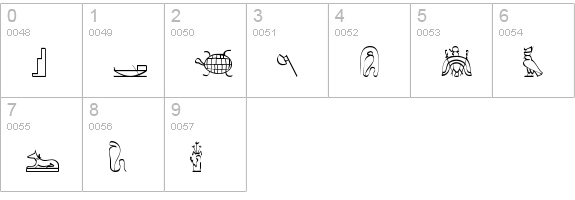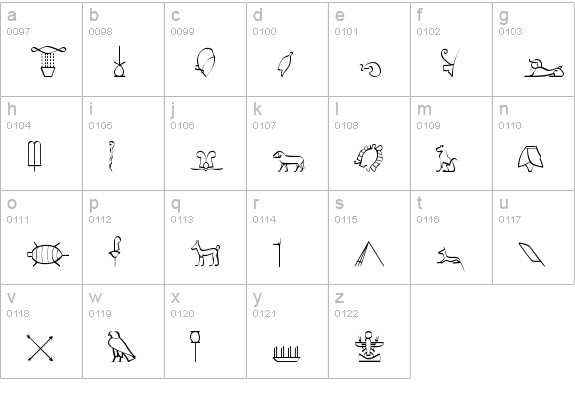
HieroglyphicDecorative Font Details
Introducing HieroglyphicDecorative font, a mesmerizing typeface that transports you back in time to the ancient world of hieroglyphics. This unique and intricate font captures the beauty and mystery of Egyptian symbols, making it perfect for adding a touch of elegance and history to your designs. HieroglyphicDecorative font is not just a typeface, but a piece of art that will elevate any project to new heights. Its detailed glyphs and ornate flourishes create a sense of authenticity and grandeur, making it ideal for historical projects, themed events, or simply adding a touch of exotic charm to your designs. Best of all, HieroglyphicDecorative font is completely free to download at FontsMarket.com. You can now easily access this stunning font and bring the magic of ancient Egypt to your creative endeavors with just a few clicks. Don't miss out on this opportunity to enhance your designs with the beauty and mystique of HieroglyphicDecorative font. Download it today and let your creativity soar to new heights!